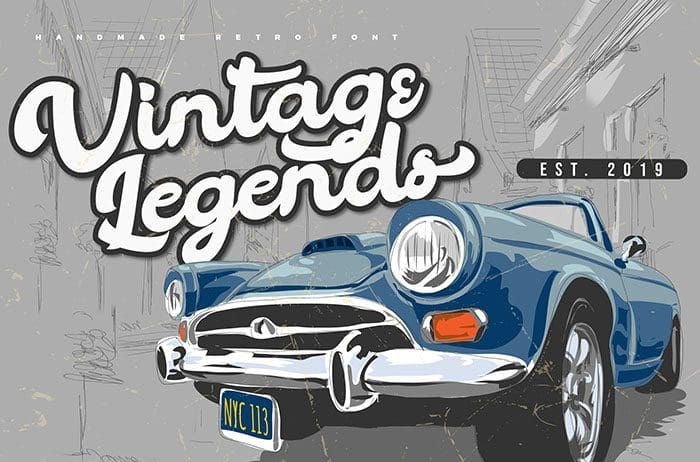
Vintage Legends Handwritten Font
Vintage Legends is a handwritten retro calligraphy style font. This font is perfect for the badge, stamp designs, sticker designs, logo, and many more. Get inspired by its classic old-school feel! Thanks to Vunira Studio for sharing this font! Take a look at this portfolio for more of his stunning fonts.